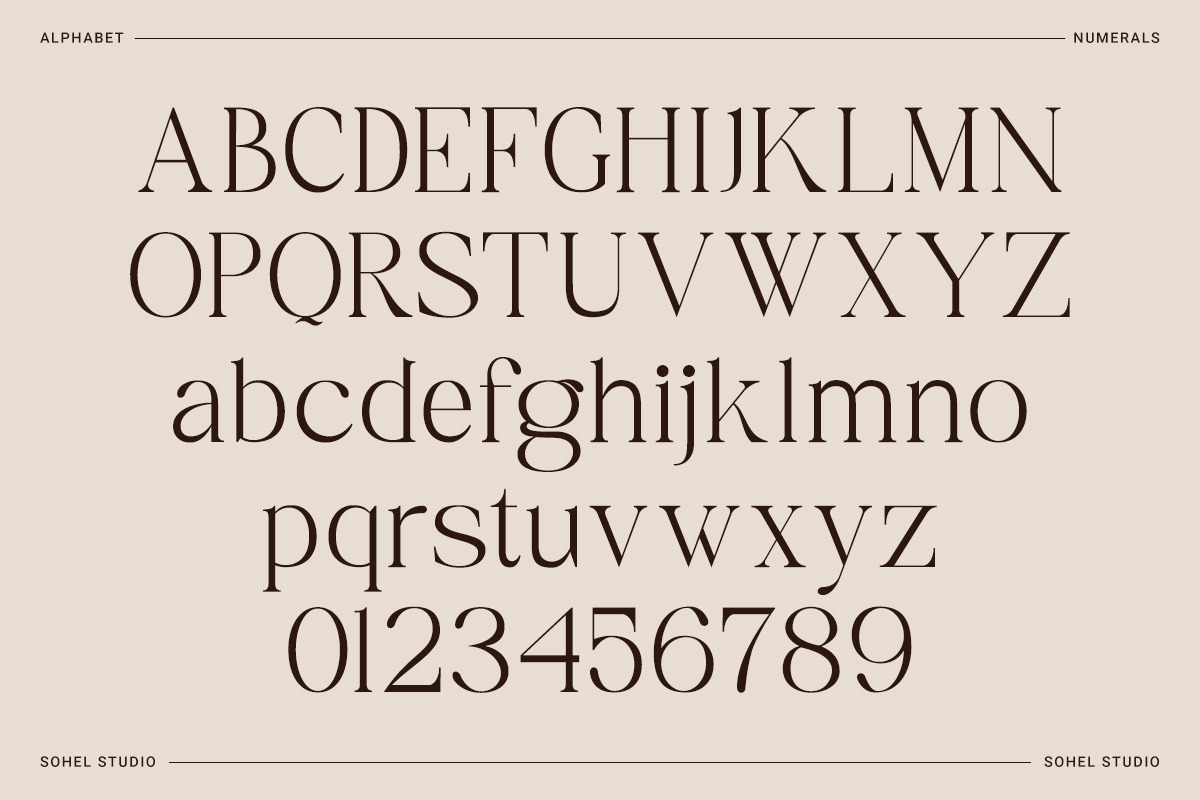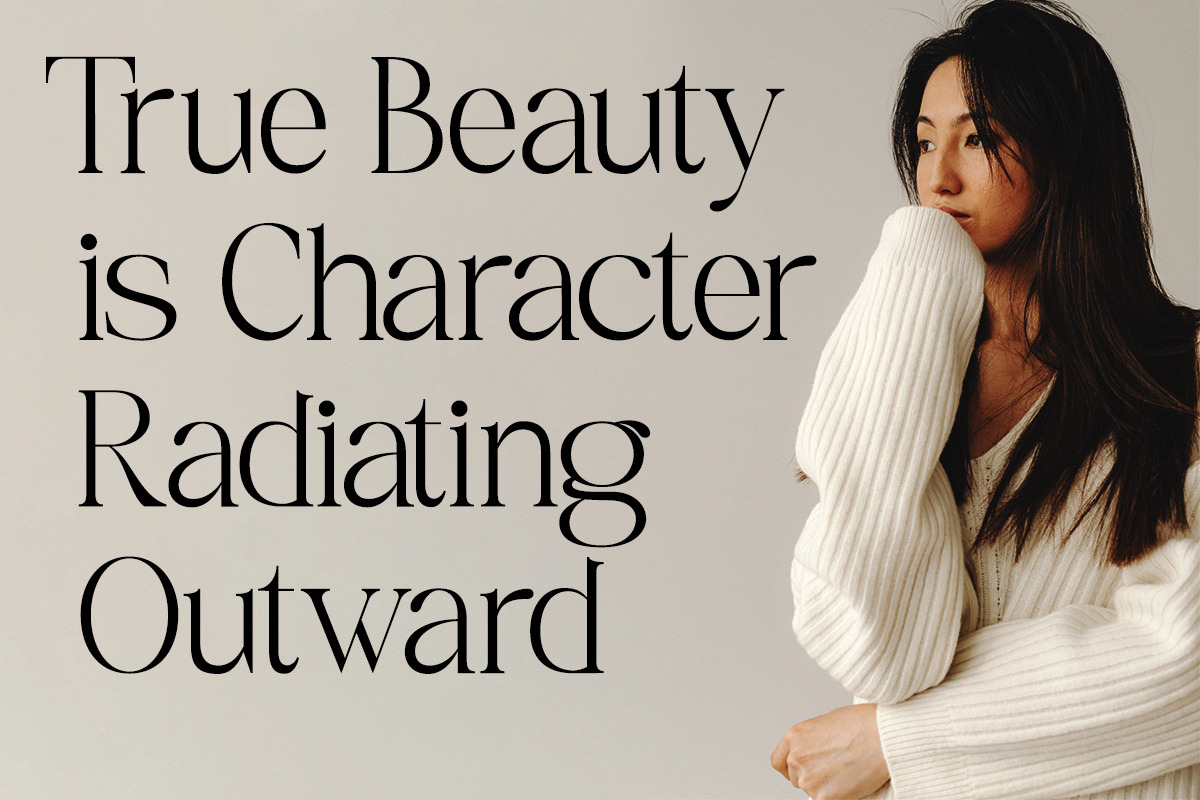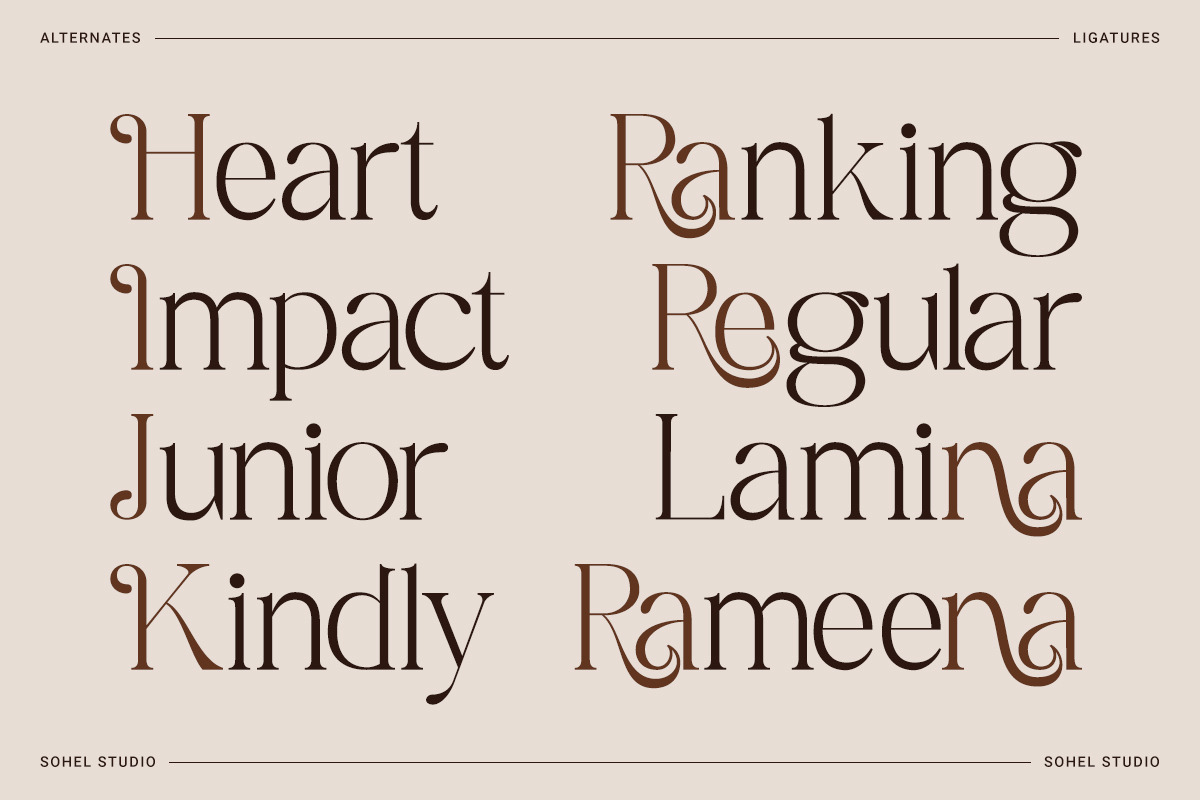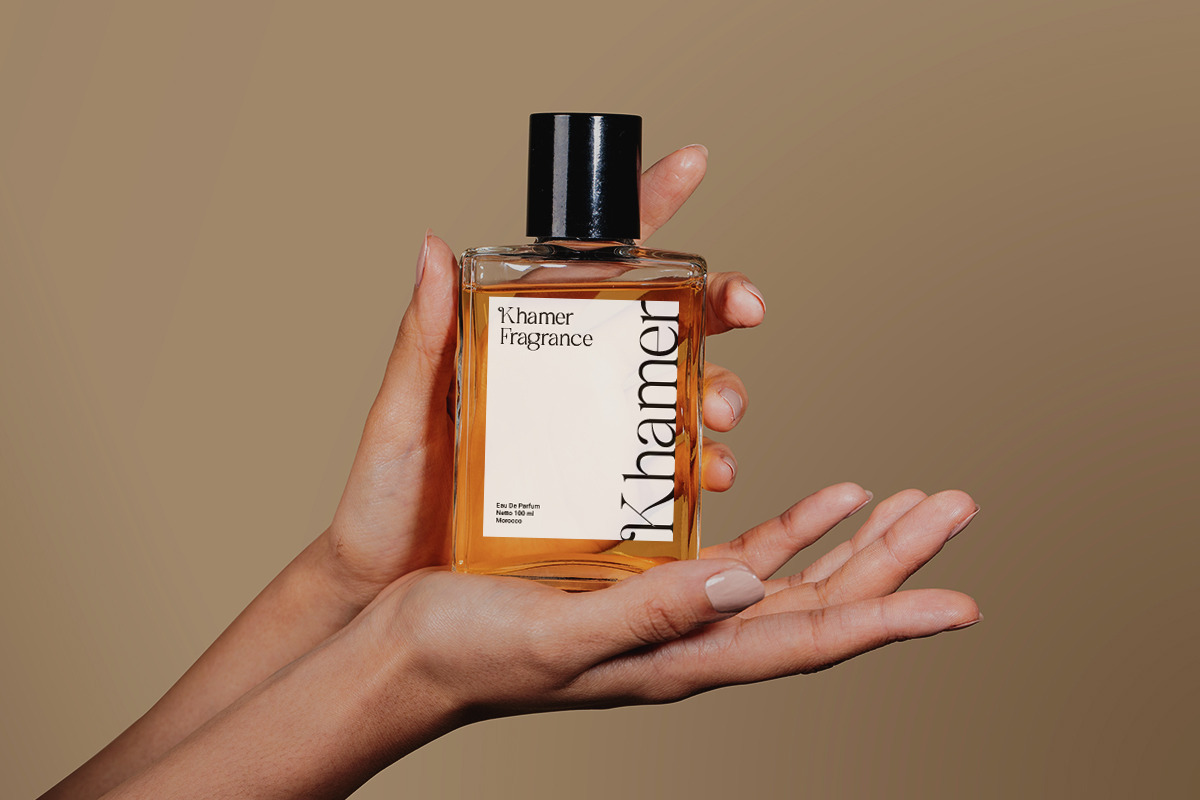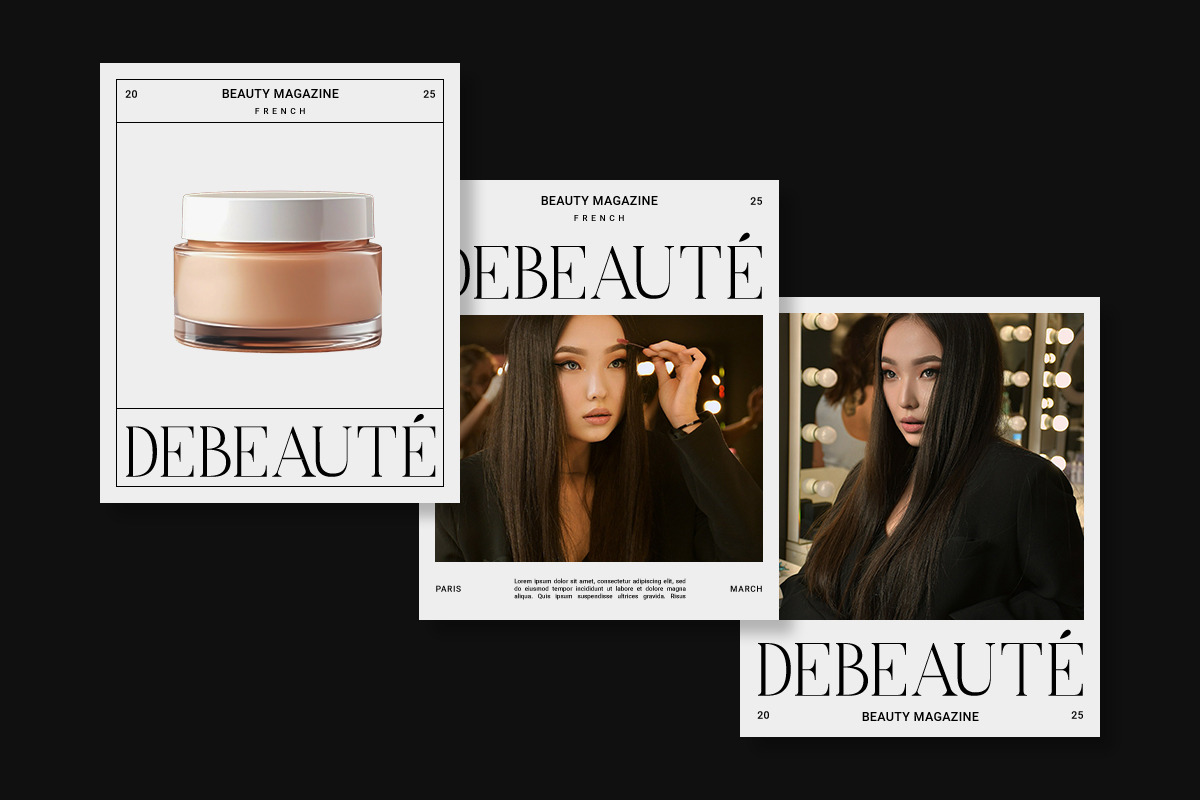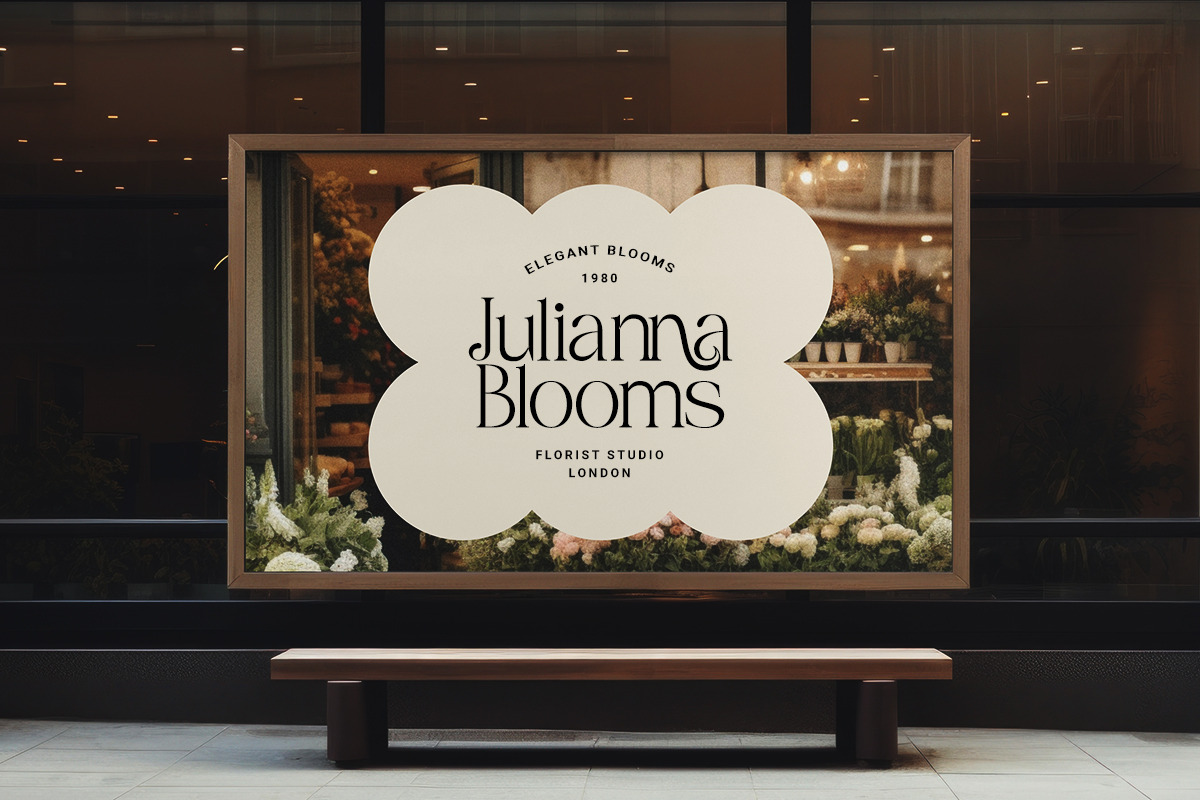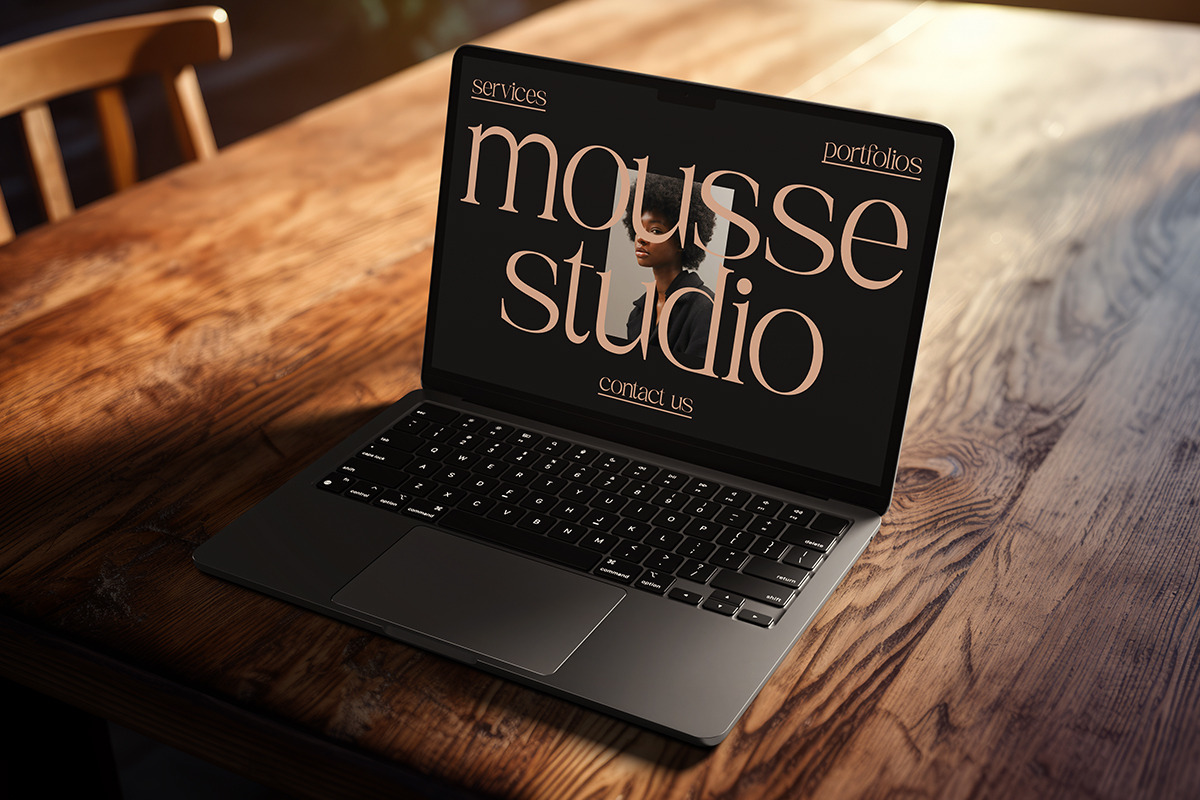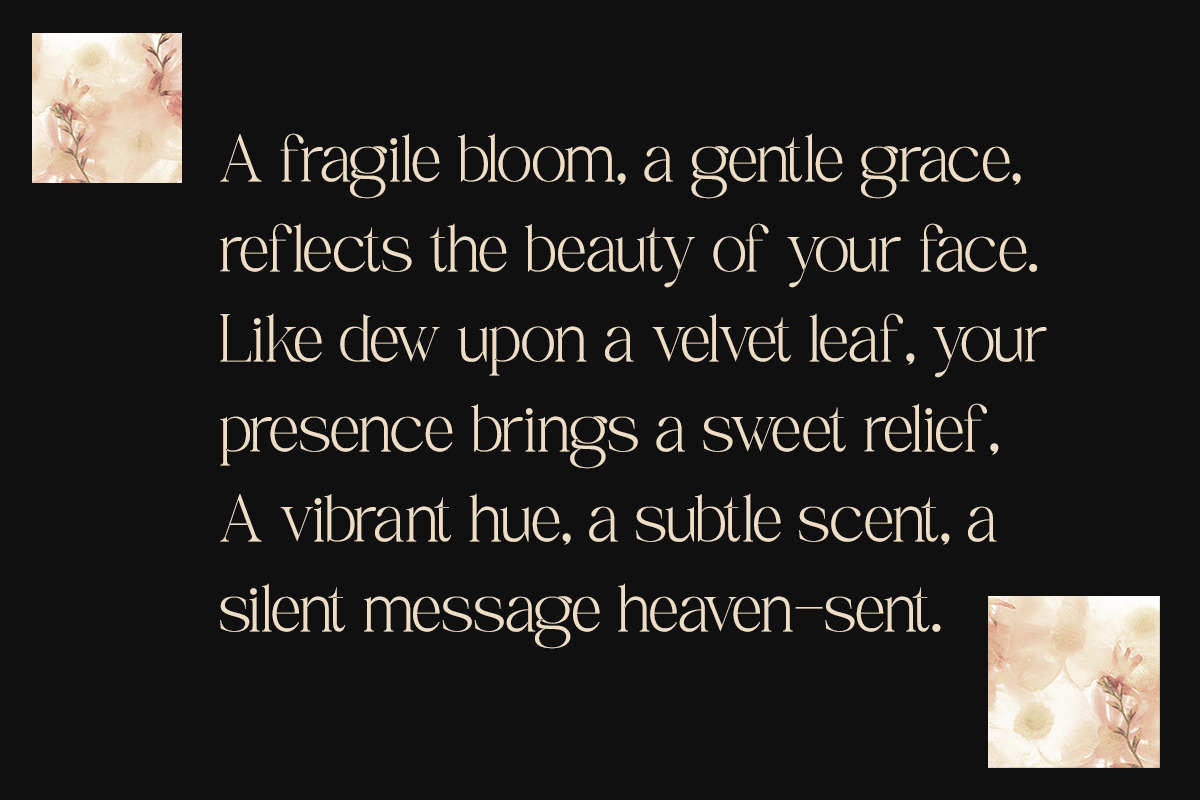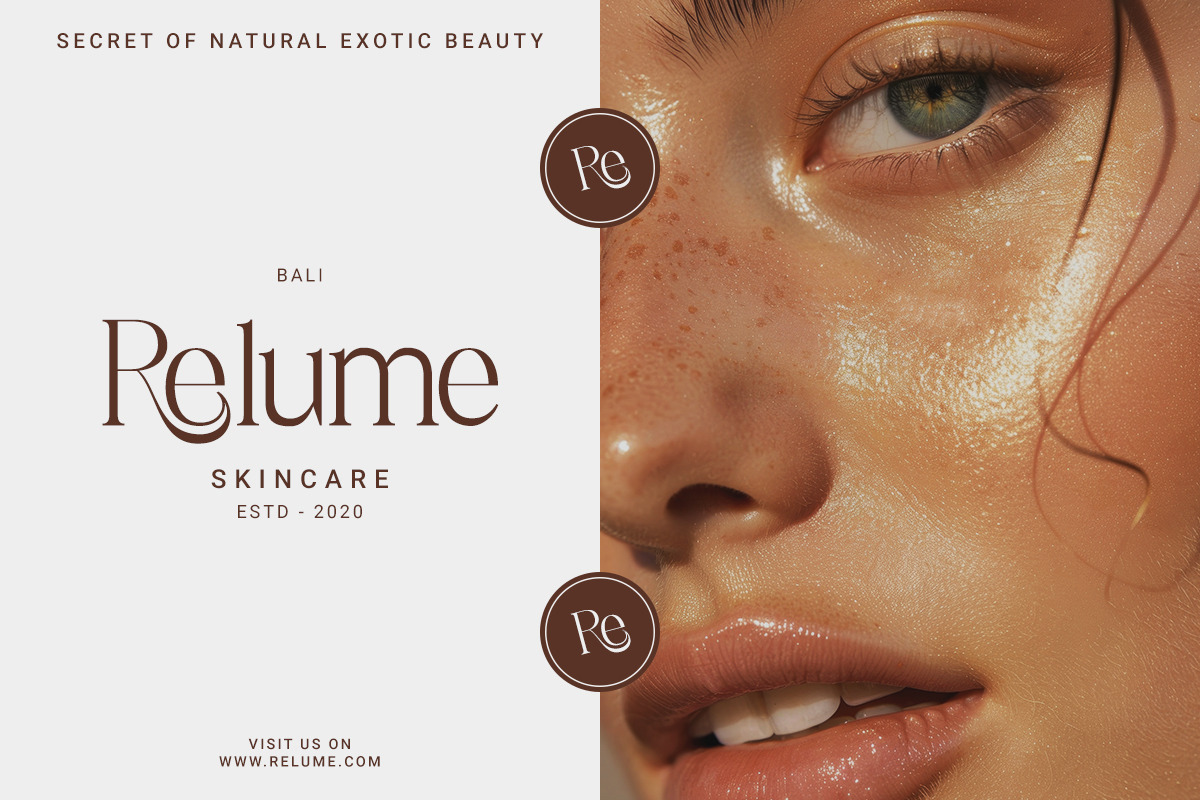
Rameena - Modern Elegant Serif
Rameena is a modern serif font that blends timeless elegance with contemporary design. Carefully crafted with intricate details, this font exudes luxury and professionalism. It's perfect for branding, editorials, packaging, wedding invitations, and other creative projects.
Rameena comes with alternates and ligatures, allowing you to create unique and personalized designs effortlessly. This font strikes the perfect balance between modern aesthetics and classic refinement, making it an excellent choice for designers seeking sophistication in their work.
- Alternates for versatile letterforms
- Ligatures for smooth and stylish connections
- Ideal for logos, posters, invitations, and more
Rameena Features: